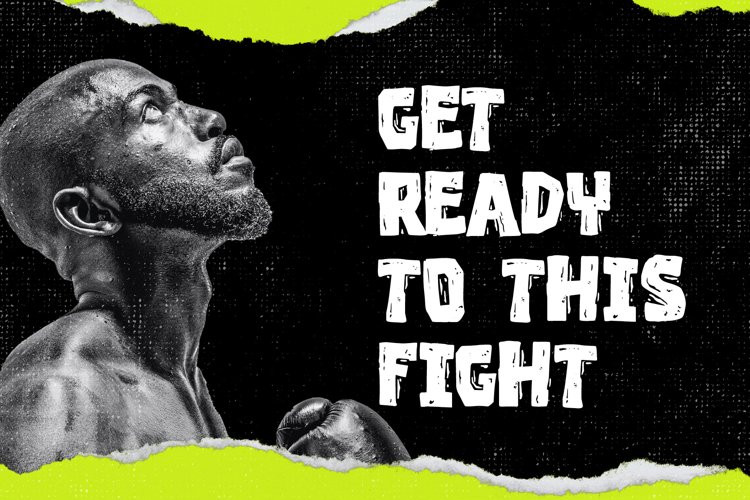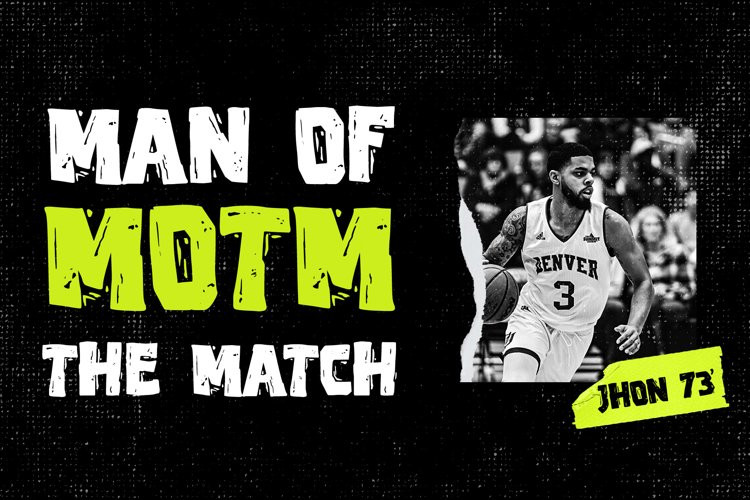
Parafernia Font
Parafernia FontParafernia is a basic bold san serif font with a rustic style. With this style, it is very suitable to support modern designs, it can also support the design of sports products.